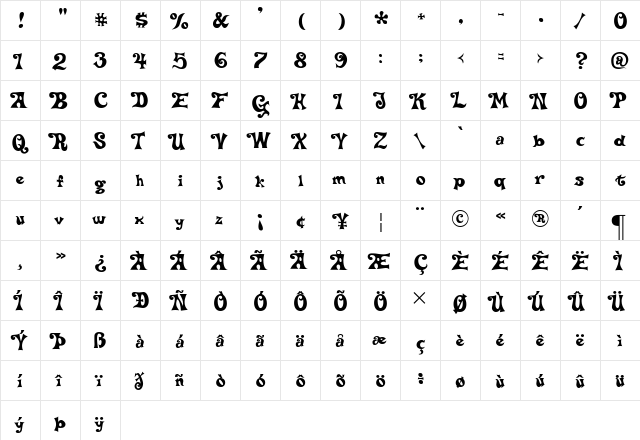
Delta Hey Max 9 Regular
Design Context for Delta Hey Max 9 Typeface
Delta Hey Max 9 is a composed and adaptable typeface that performs quietly and consistently across a wide range of design contexts.
Pro Tip: Use Delta Hey Max 9 in both headline and body roles to test its range before committing to a single application.